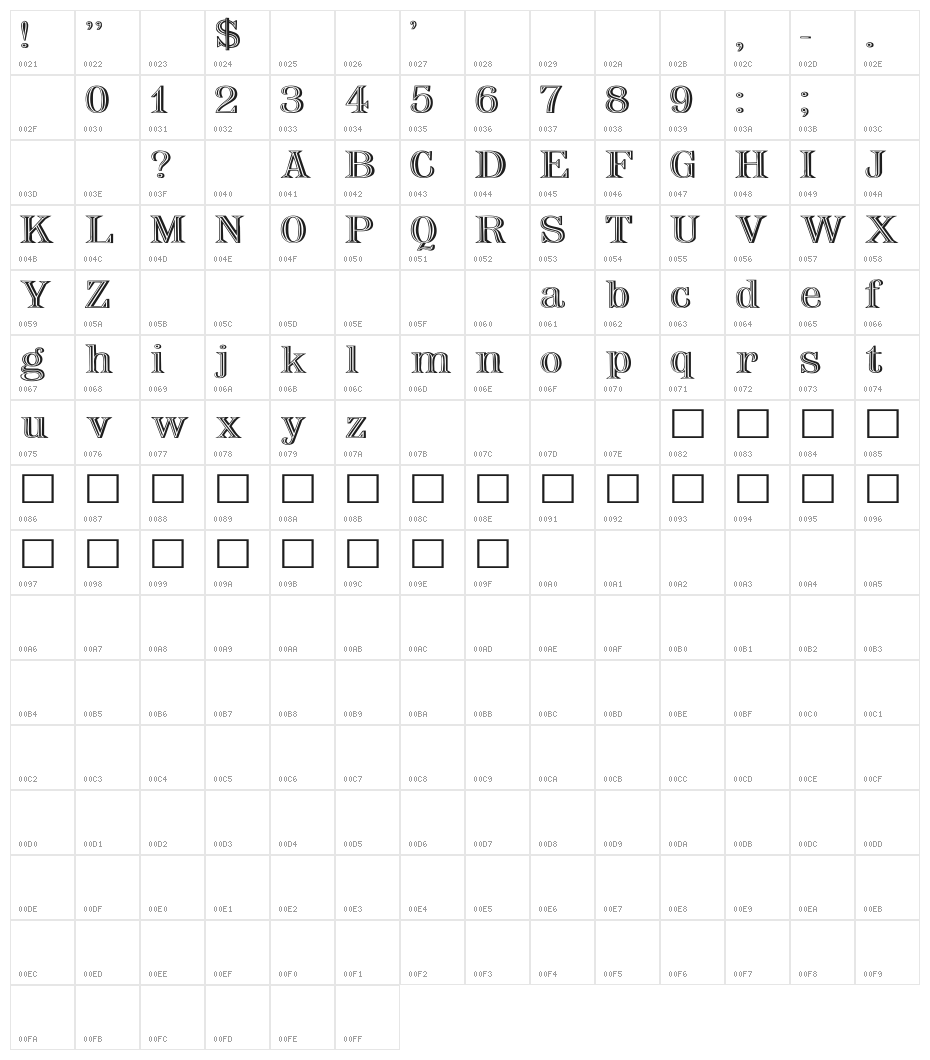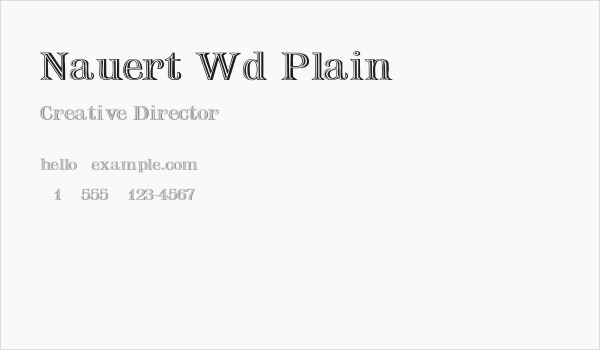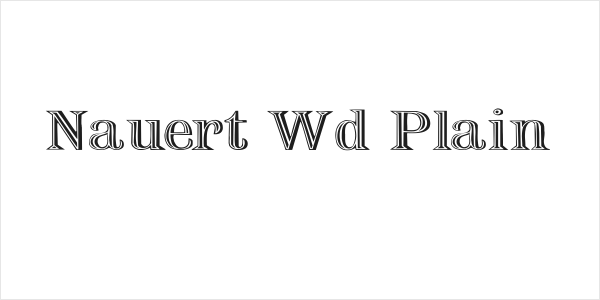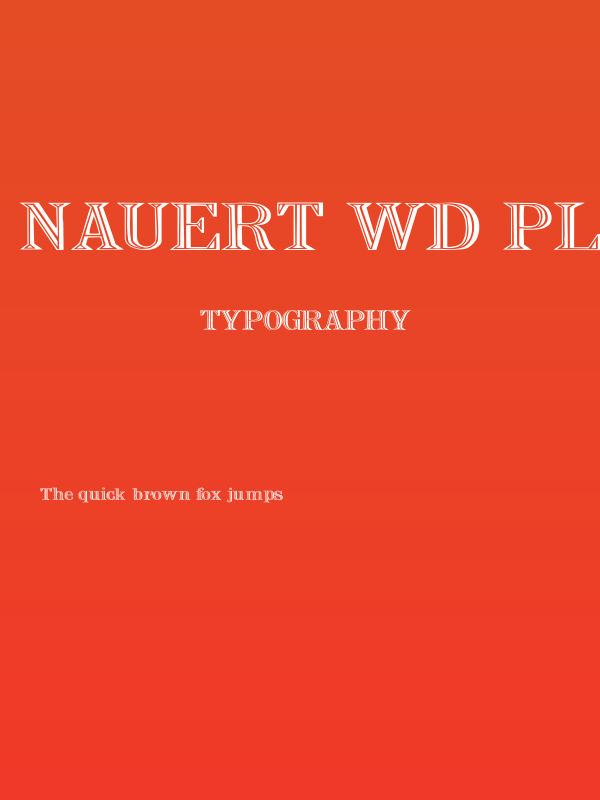
Nauert Wd Plain Font
Nauert Wd Plain Description
This font features a bold and decorative style with a distinct outline that adds depth and dimension to each character. The uppercase letters are strong and commanding, while the lowercase letters maintain a consistent style with slightly softer edges. The numerals are equally bold, ensuring they stand out in any design. Special characters are designed with the same attention to detail, making them suitable for a variety of uses. The overall design is reminiscent of vintage signage, offering a classic yet eye-catching appearance.
| Proposed Projects | Ideal for vintage-themed posters, signage, branding, and headlines that require a strong visual impact. |